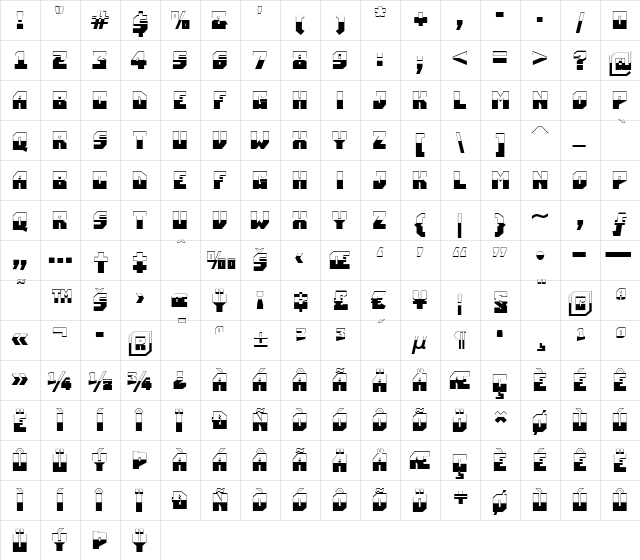
a_SimplerBUB&W Bold
| Designer | W.Chufarofsky & M.Slutsker |
Design Context for a_SimplerBUB&W Typeface
a_SimplerBUB&W is a composed and adaptable typeface that performs quietly and consistently across a wide range of design contexts. The heavy weight commands attention and anchors typographic hierarchies.